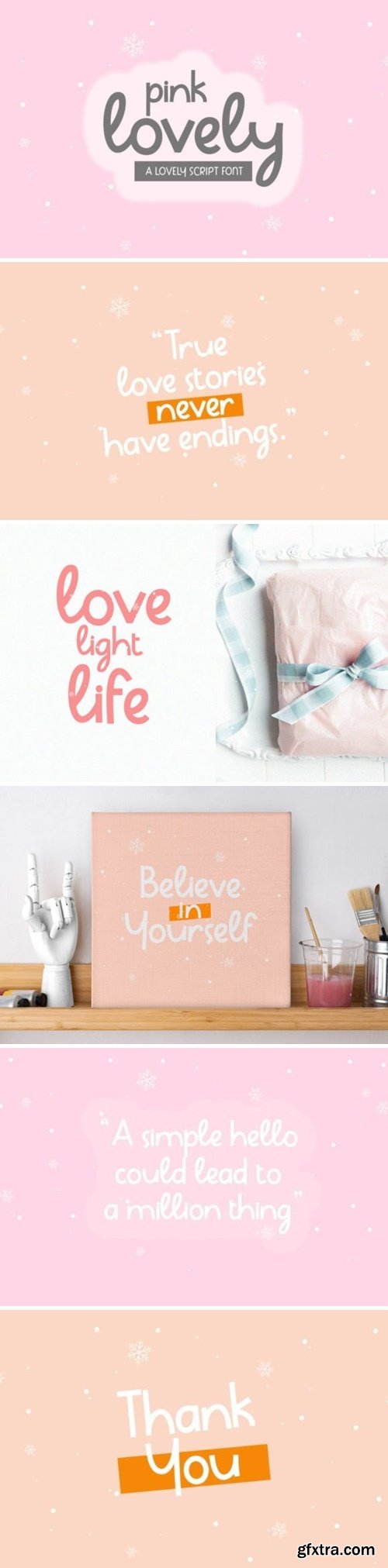
Pink Love Font
Pink Love is an elegant handwritten bold font that has a very neat kerning. Expertly designed to make your creations look amazing. This font will look great on a variety of ideas, use it to get creative in apparel branding, daily quotes, tote bag or handbag branding, product packaging, headers, posters, and many more!